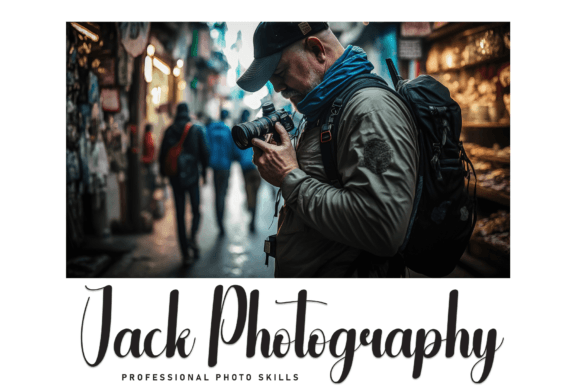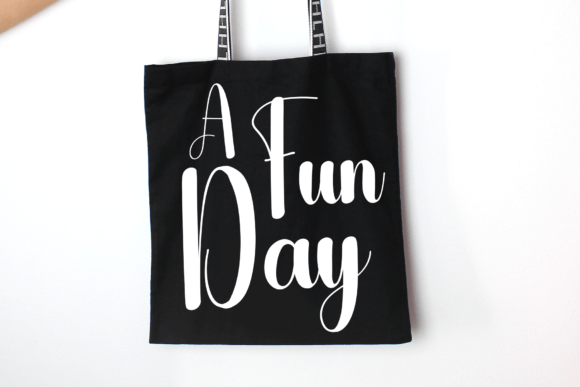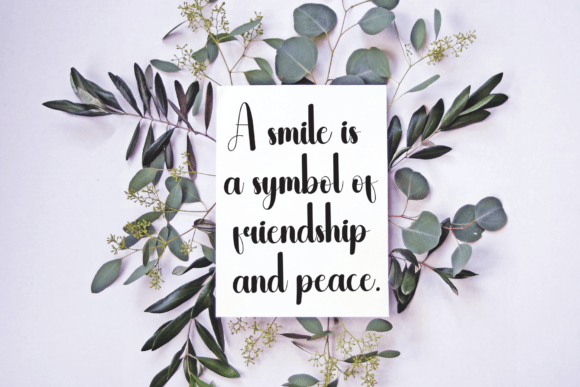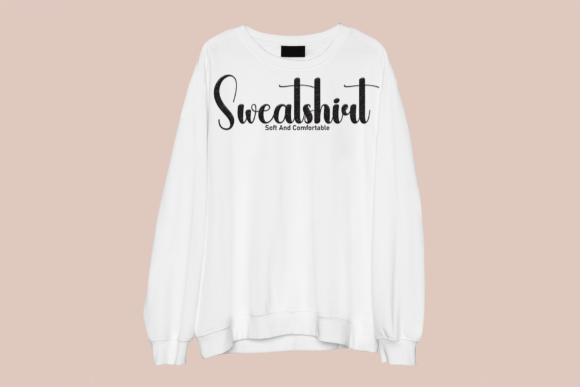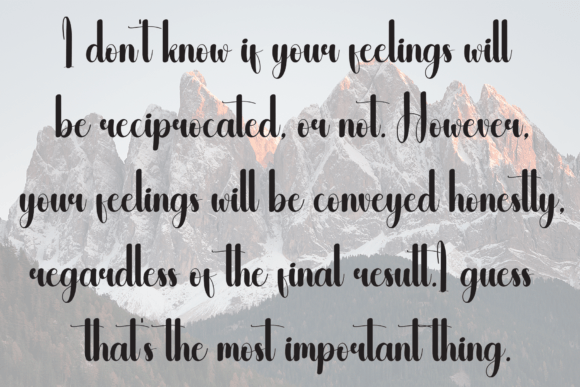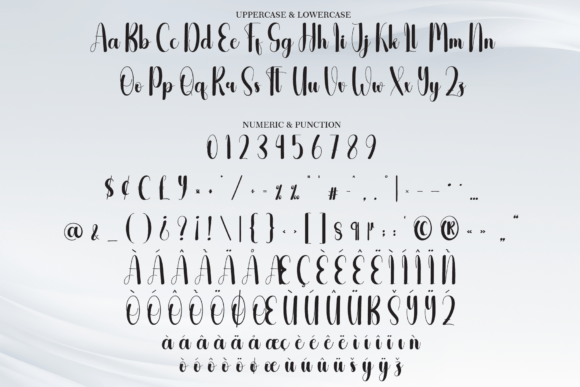
Introducing Backlash Font: The Sweet and Friendly Handwritten Font for Your Design Needs
Are you a designer or crafter looking for a font that can add a personal touch to your designs? Look no further than Backlash Font! This sweet and friendly handwritten font is perfect for creating beautiful wedding invitations, cards, and other designs that require a lovely touch. In this article, we’ll explore the features and benefits of Backlash Font, and how it can elevate your designs to the next level.
What is Backlash Font?
Backlash Font is a modern handwritten font that exudes warmth and friendliness. Its unique and elegant style makes it perfect for a wide range of design applications, from wedding invitations and cards to branding and packaging. The font is carefully crafted to provide a smooth and consistent look, making it easy to read and visually appealing.
Key Features of Backlash Font
- Cute and Fun: Backlash Font has a playful and whimsical feel that makes it perfect for designs that require a lighthearted touch.
- Sweet and Friendly: The font’s warm and inviting style makes it ideal for creating designs that are personal and engaging.
- Handwritten: Backlash Font has a genuine handwritten feel that adds a personal touch to your designs.
- Highly Versatile: The font can be used for a wide range of design applications, from print to digital media.
Benefits of Using Backlash Font
So, why should you choose Backlash Font for your design needs? Here are just a few benefits of using this amazing font:
- Easy to Read: Backlash Font is designed to be easy to read, making it perfect for body text and headlines.
- Unique and Creative: The font’s unique style ensures that your designs will stand out from the crowd.
- Time-Saving: With Backlash Font, you can create beautiful designs quickly and easily, saving you time and effort.
How to Use Backlash Font in Your Designs
Using Backlash Font in your designs is easy! Here are a few tips to get you started:
- Pair it with Other Fonts: Backlash Font pairs well with other fonts, such as sans-serif fonts for a modern look or serif fonts for a more traditional feel.
- Experiment with Colors: The font looks great in a variety of colors, from bold and bright to soft and pastel.
- Add Decorations: Consider adding decorations, such as flowers or leaves, to give your designs a more whimsical feel.
Backlash Font is particularly well-suited for wedding invitations and cards. Its sweet and friendly style makes it perfect for:
- Wedding Invitations: Create beautiful and elegant wedding invitations that set the tone for your special day.
- Cards: Design lovely cards for birthdays, anniversaries, and other special occasions.
- Stationery: Use Backlash Font to create custom stationery, such as letterheads and notecards.
In conclusion, Backlash Font is a sweet and friendly handwritten font that’s perfect for designers and crafters who want to add a personal touch to their designs. With its unique and elegant style, versatility, and ease of use, Backlash Font is an excellent choice for a wide range of design applications. Whether you’re creating wedding invitations, cards, or other designs, Backlash Font is sure to impress. So why wait? Download Backlash Font today and start creating beautiful designs that will leave a lasting impression!